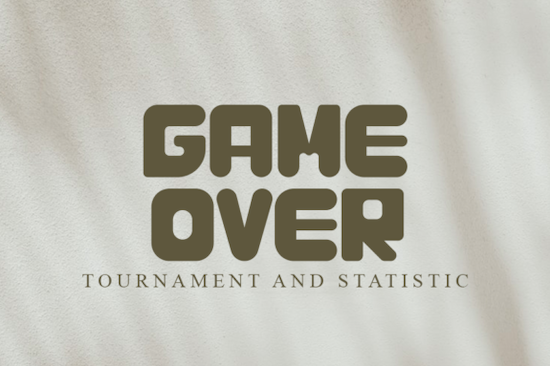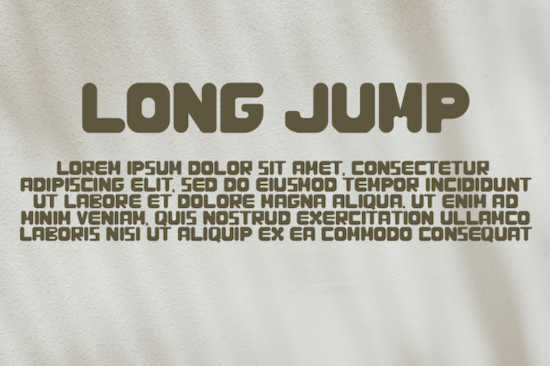
BOLD LINE Font
by Inermedia STUDIO
BOLD LINE display font is a modern and stylish sans serif typeface. This sans serif font was released by Inermedia STUDIO, it brings a modern and classic feel that allows every designer to make an exciting journey in designing.
BOLD LINE is inspired by adventure activity. The display font has smooth edges, so it will bring amazing handwriting for the great design projects. It is a unique modern display sans font and we could used for promotion, logo, user interface, branding, titling, film title, big title, and much more.
BOLD LINE Display Sans Font